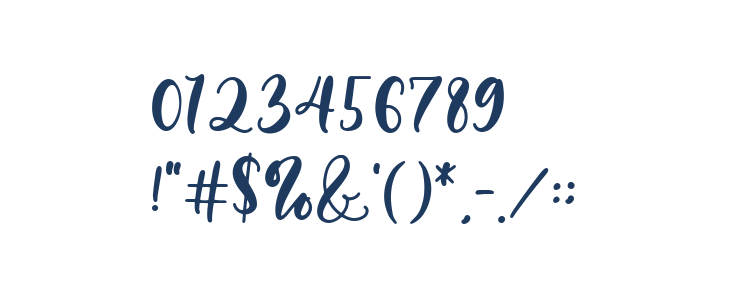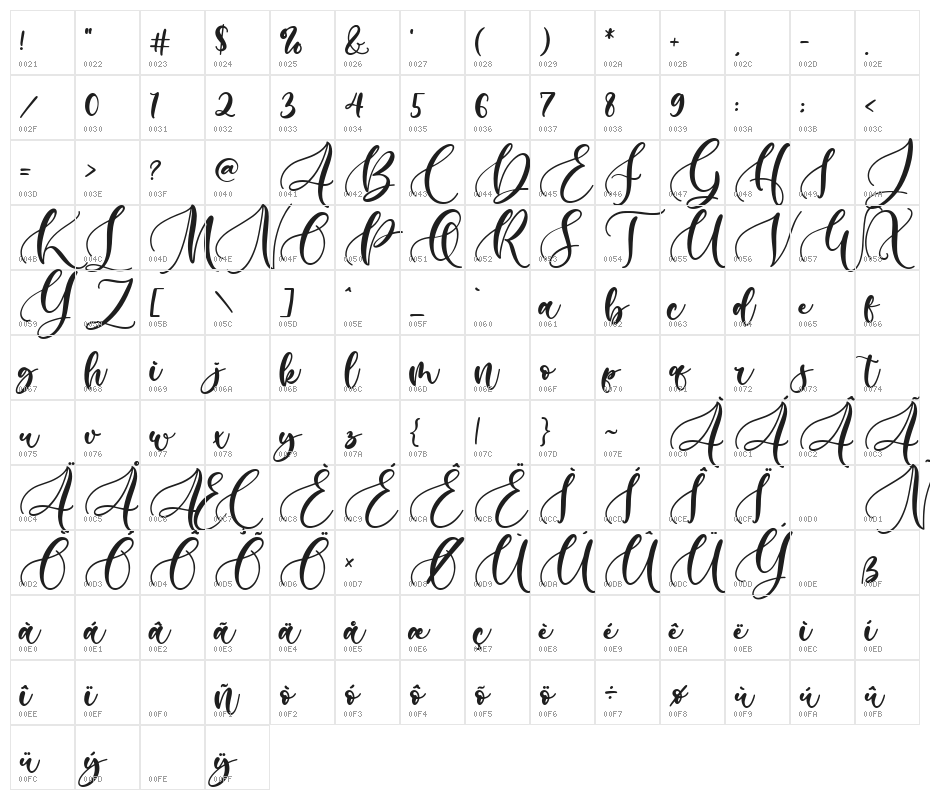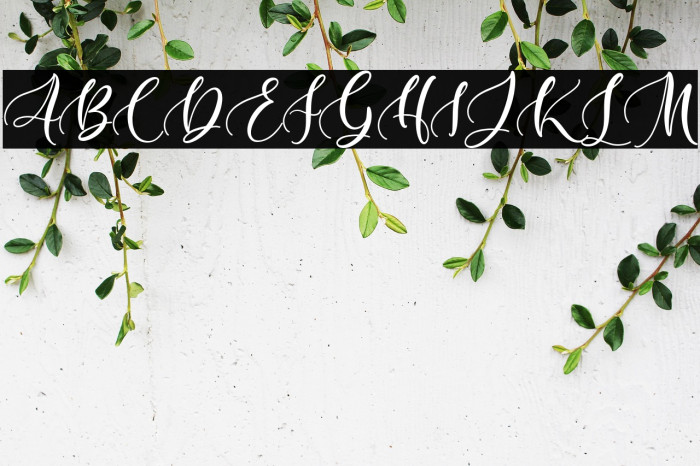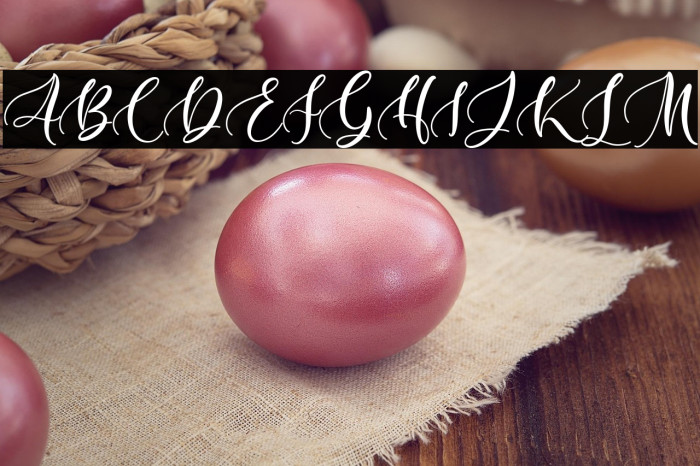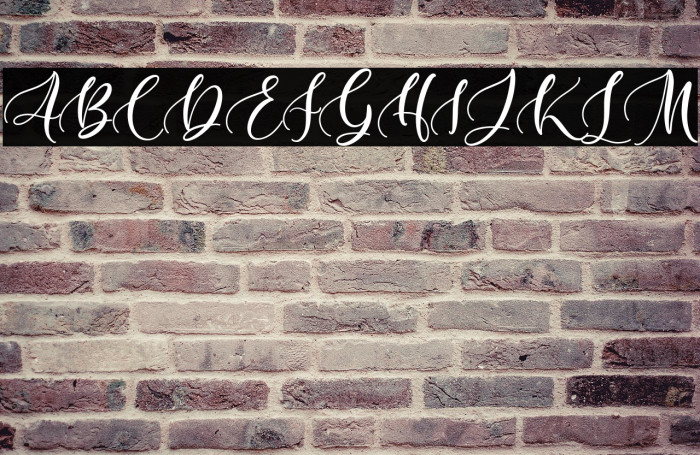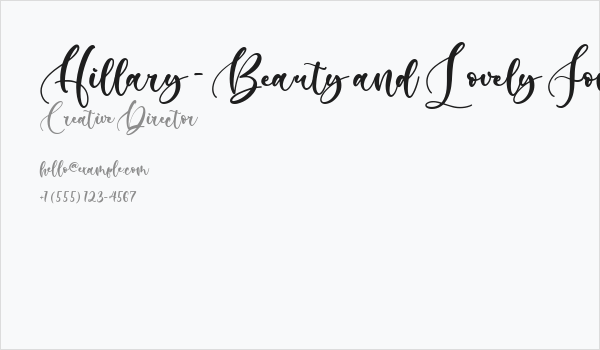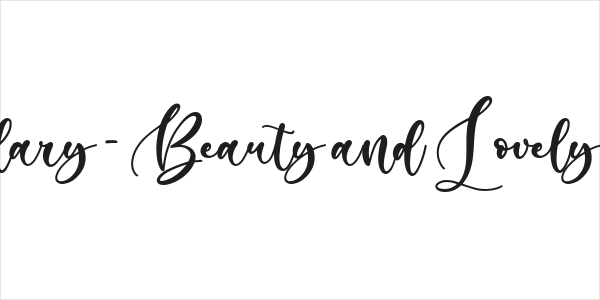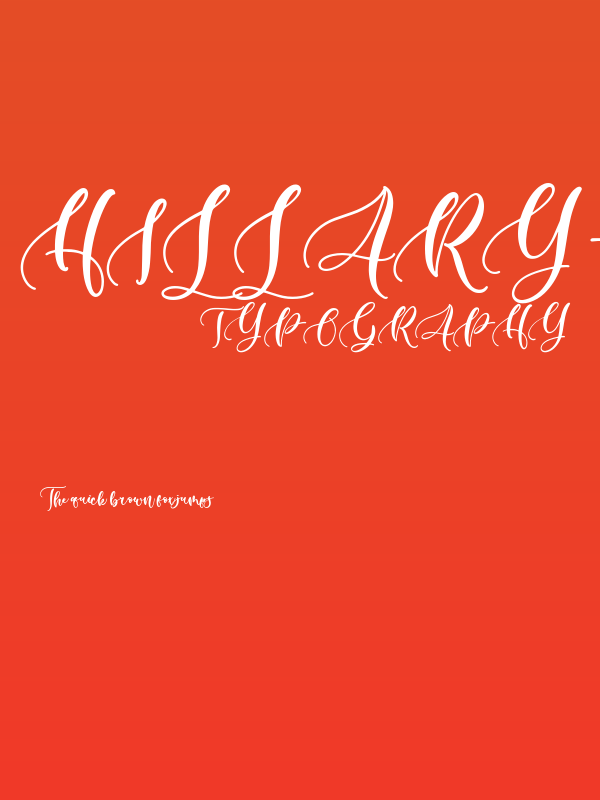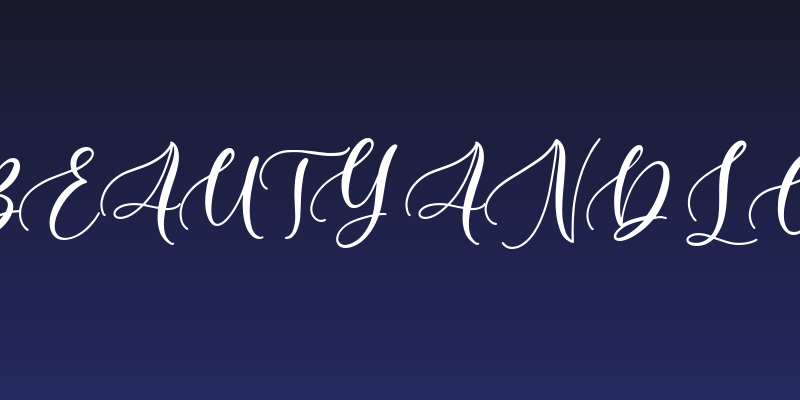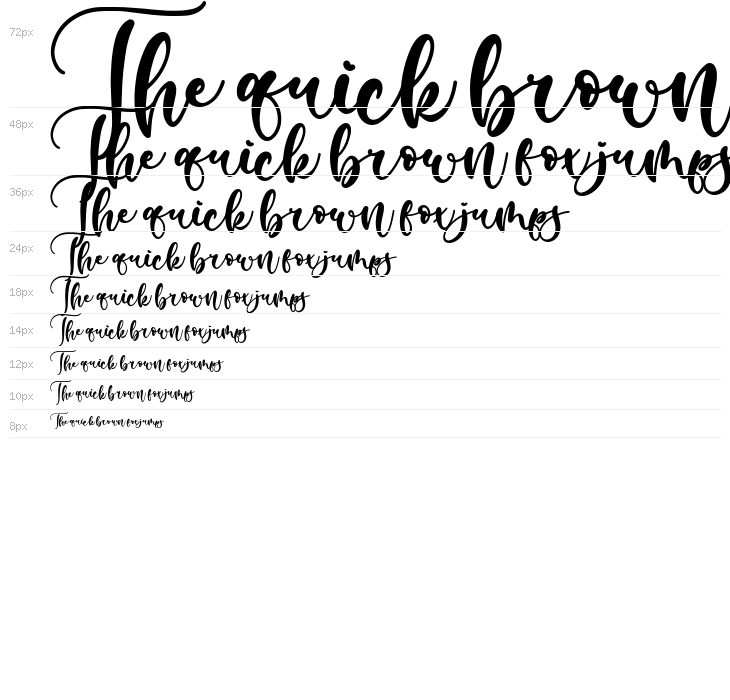
Hillary - Beauty and Lovely Fon Font
Hillary - Beauty and Lovely Fon Description
This font features an elegant and flowing script style, characterized by its smooth, cursive letterforms that convey a sense of grace and sophistication. The uppercase letters are particularly ornate, with intricate loops and swirls that add a decorative touch. The lowercase letters maintain a consistent fluidity, enhancing readability while retaining an artistic flair. The numerals and special characters complement the alphabet with similar stylistic elements, ensuring a cohesive appearance across all text. This font's design is both modern and timeless, making it suitable for a variety of creative applications.
| Proposed Projects | Ideal for wedding invitations, branding, greeting cards, and elegant packaging designs. |